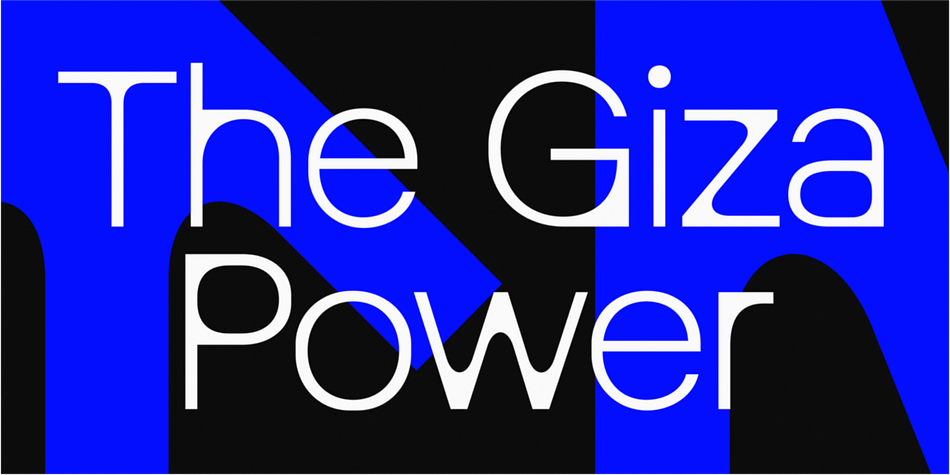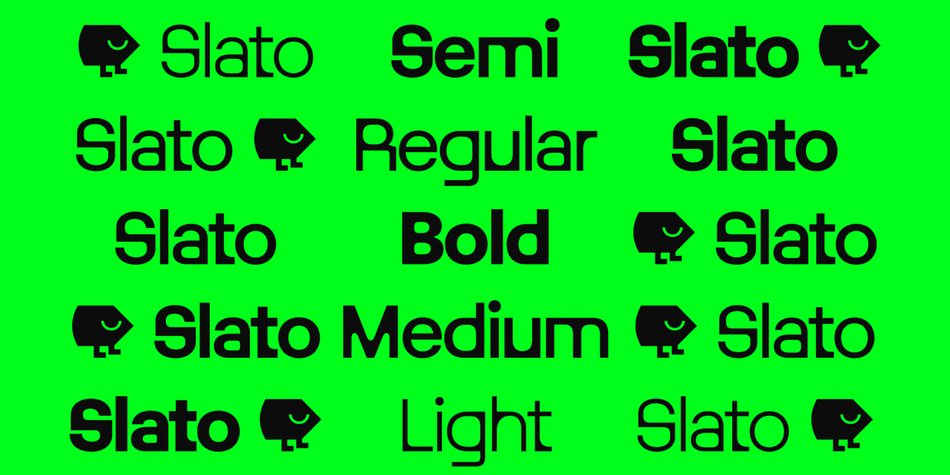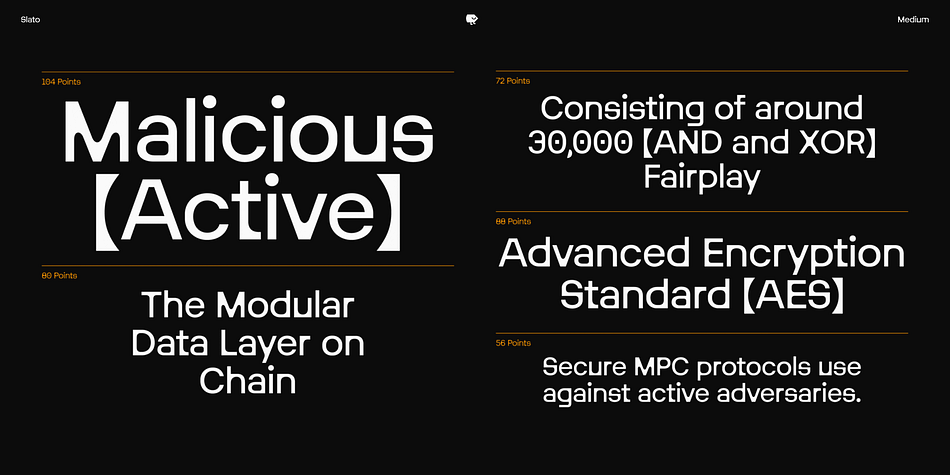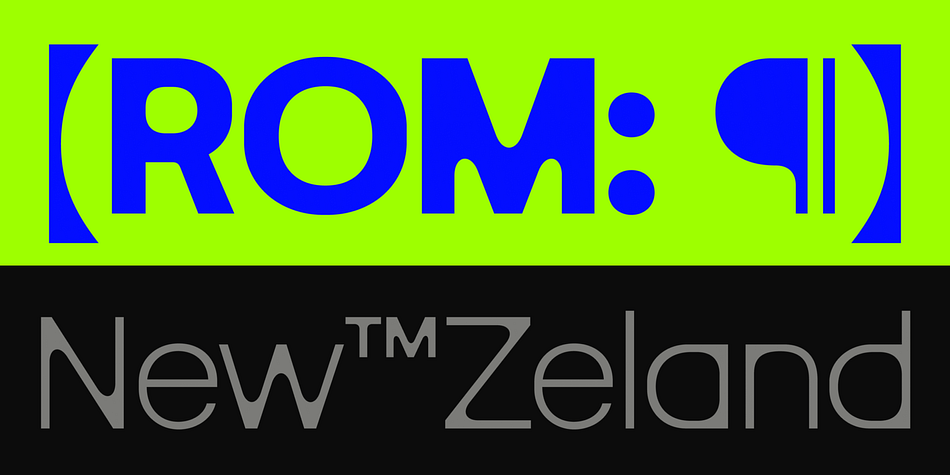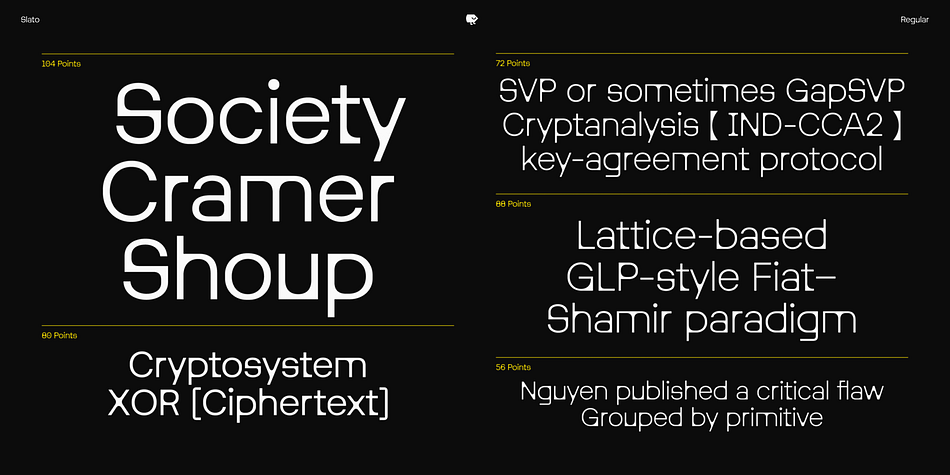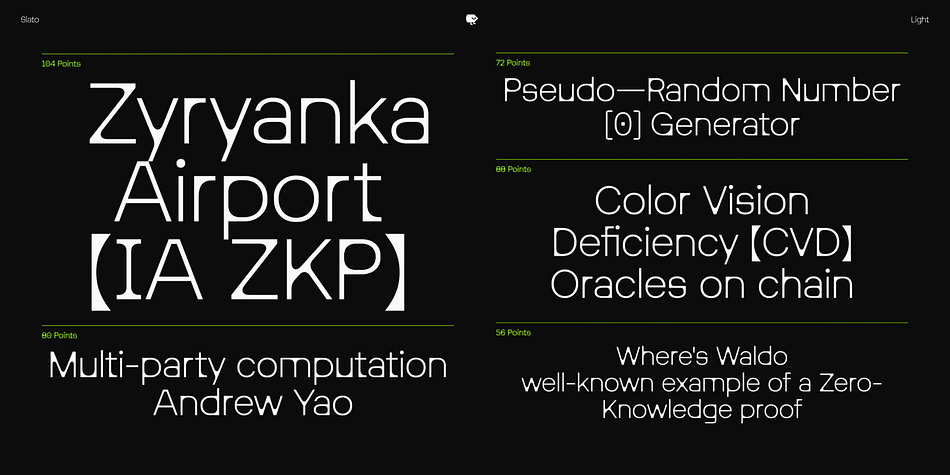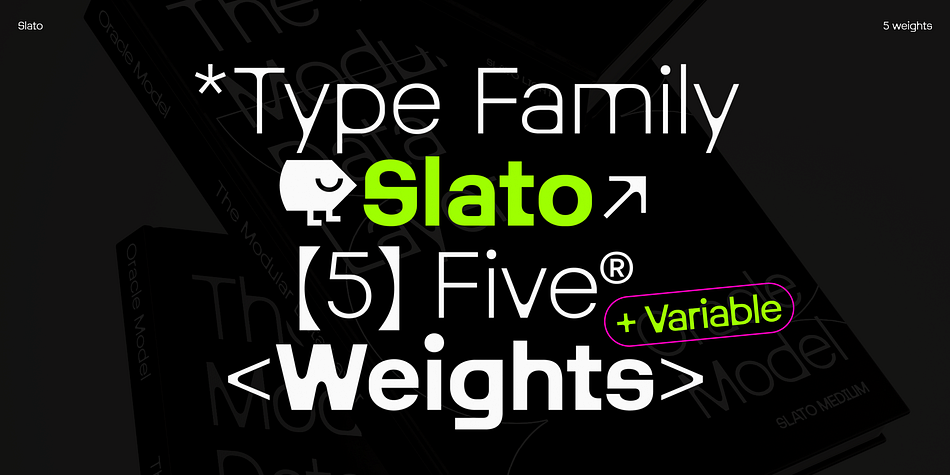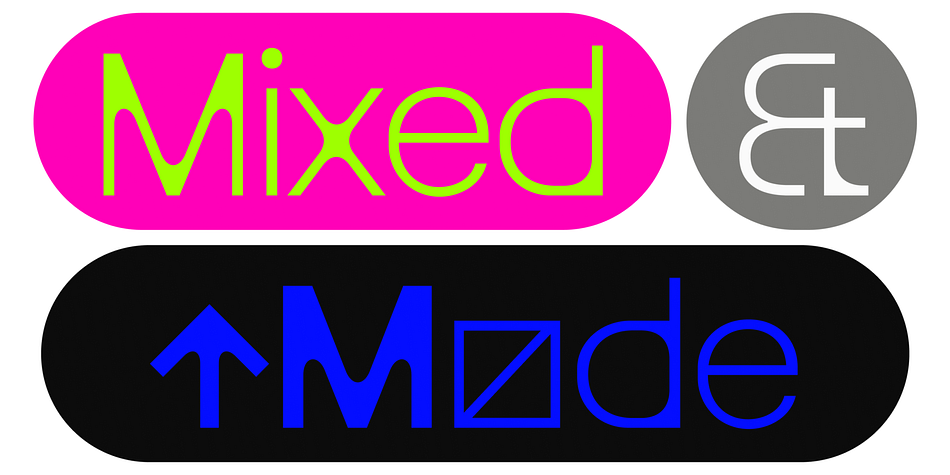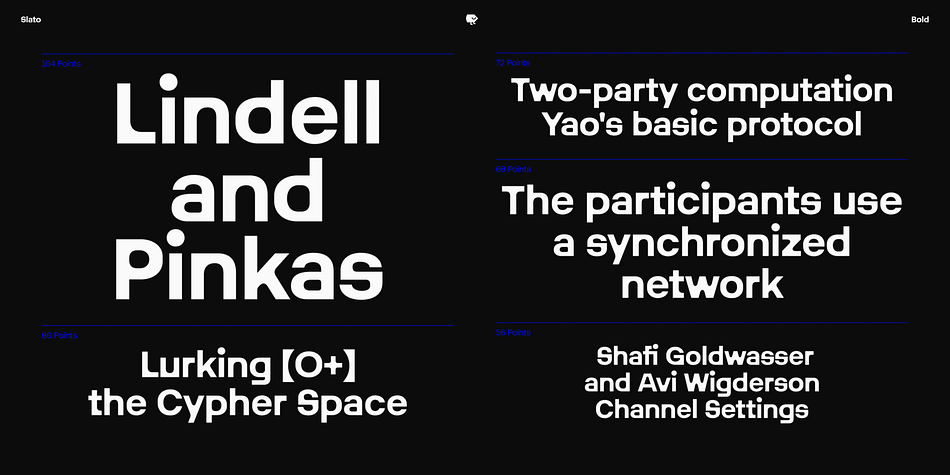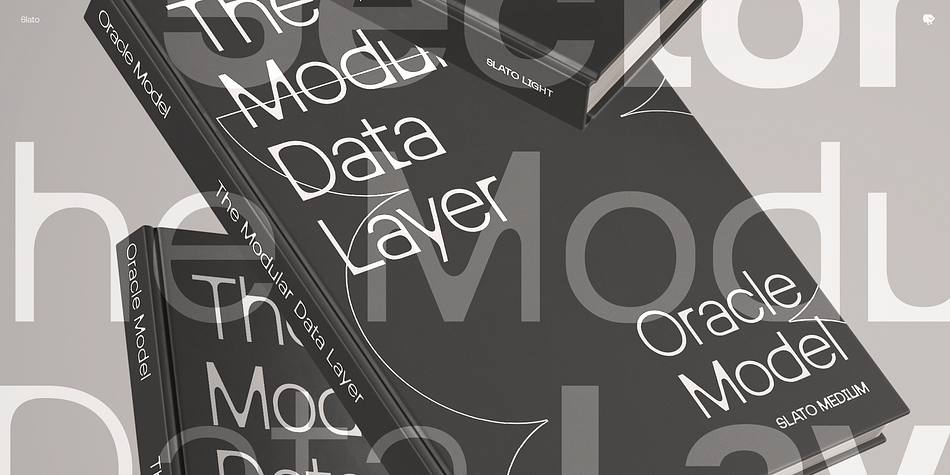
Slato
Slato is a display sans font family. This typeface has five styles and was published by TOMO FONTS.
SLATO is a modern, versatile typeface characterized by its geometric precision and bold, contemporary aesthetic. Each character is meticulously crafted with clean lines and uniform stroke widths, creating a sleek and consistent look. The font’s bold nature is evident in its strong, confident letterforms, which make a dynamic visual impact. SLATO offers a range of weights from Light to Bold, ensuring adaptability for various applications, from striking headlines to clear body text. Its modern and futuristic appeal, combined with excellent readability and a comprehensive character set, makes SLATO ideal for branding, editorial design, and digital interfaces, bringing a forward-thinking, innovative edge to any project.